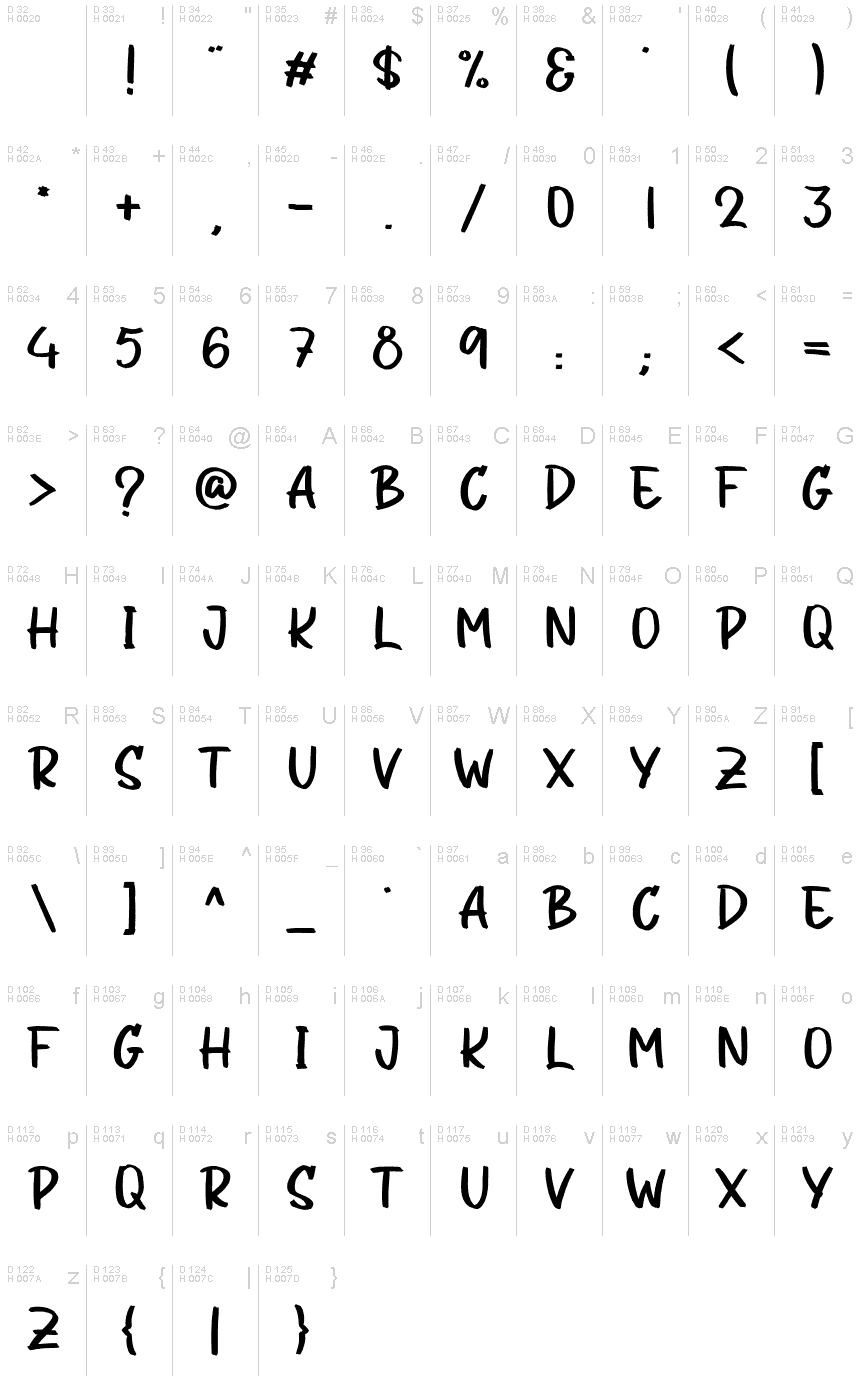
Vivacily
Vivacily is a beautiful brush handwritten font designed by Qwrtype Foundry. It has an organic, flowy feel which makes it perfect for crafting logos, posters, product packaging and creative projects. With its stylized letterforms, Vivacily adds a touch of personality to any design.